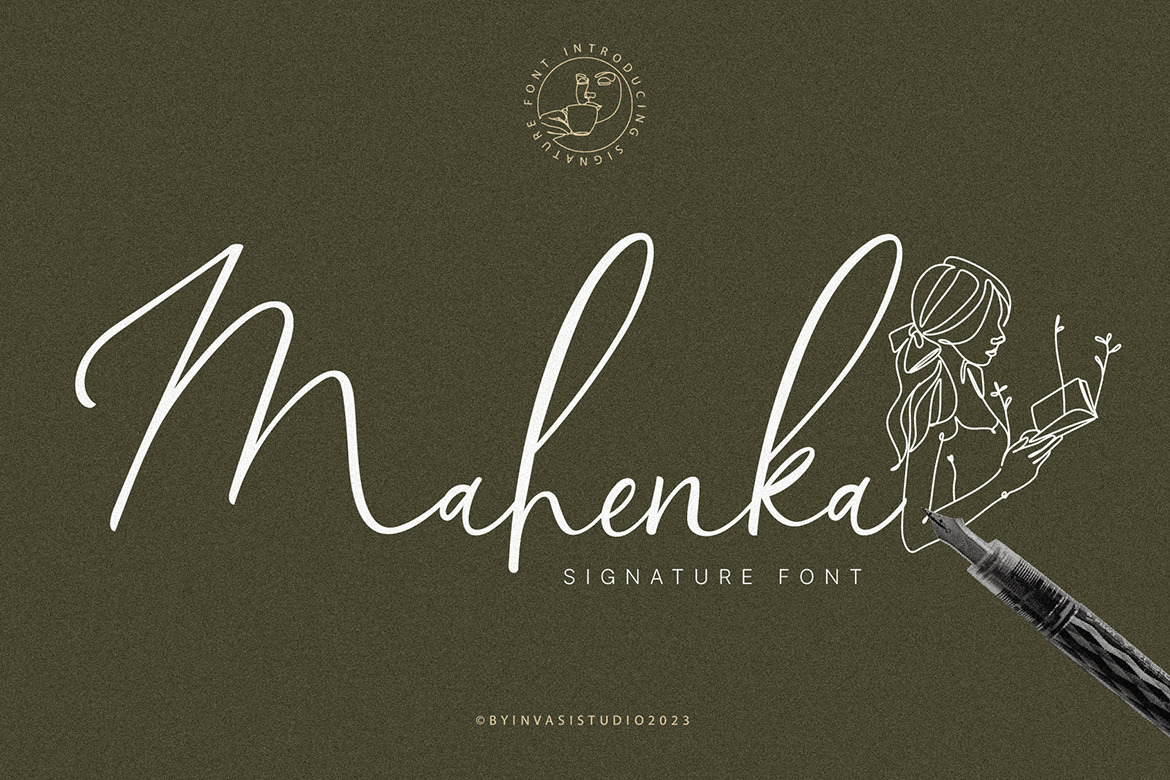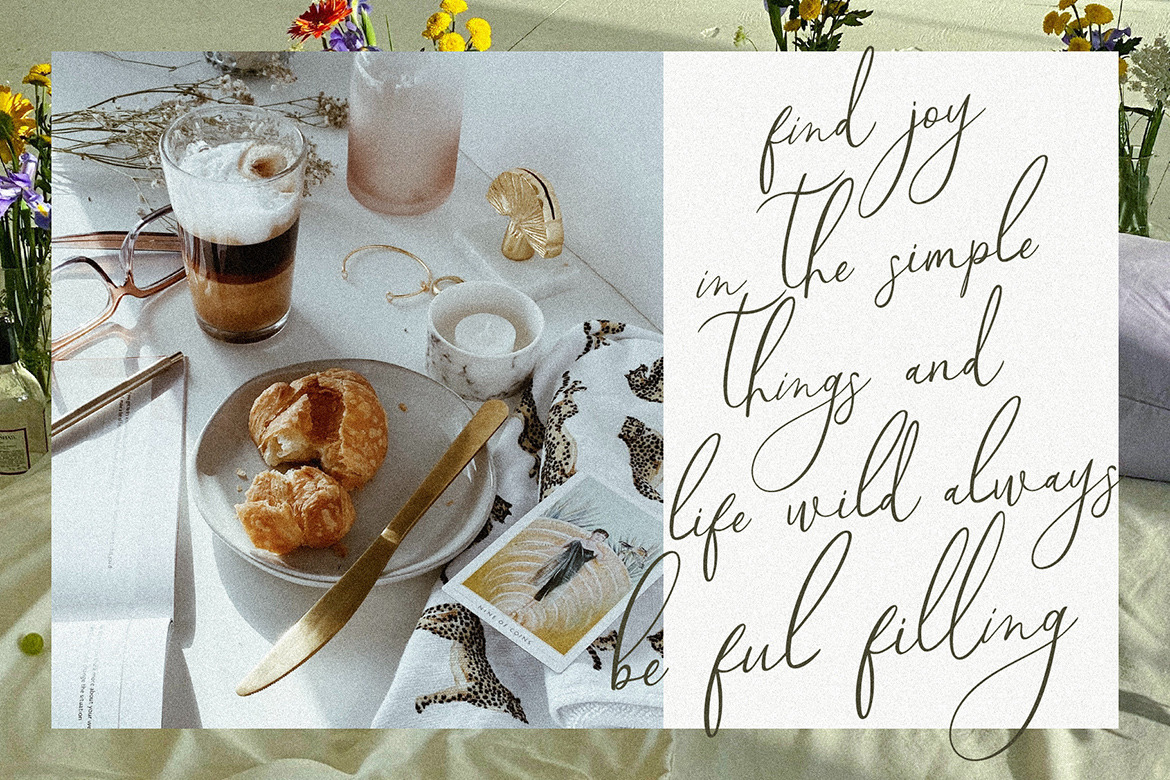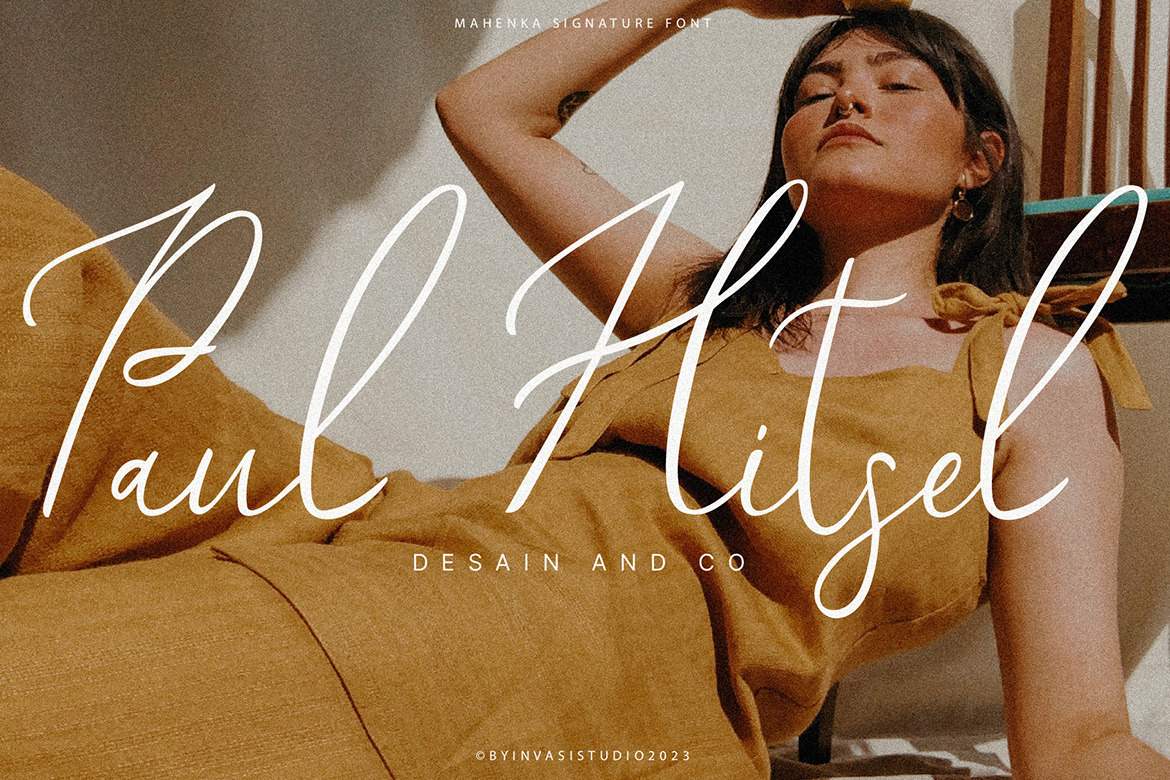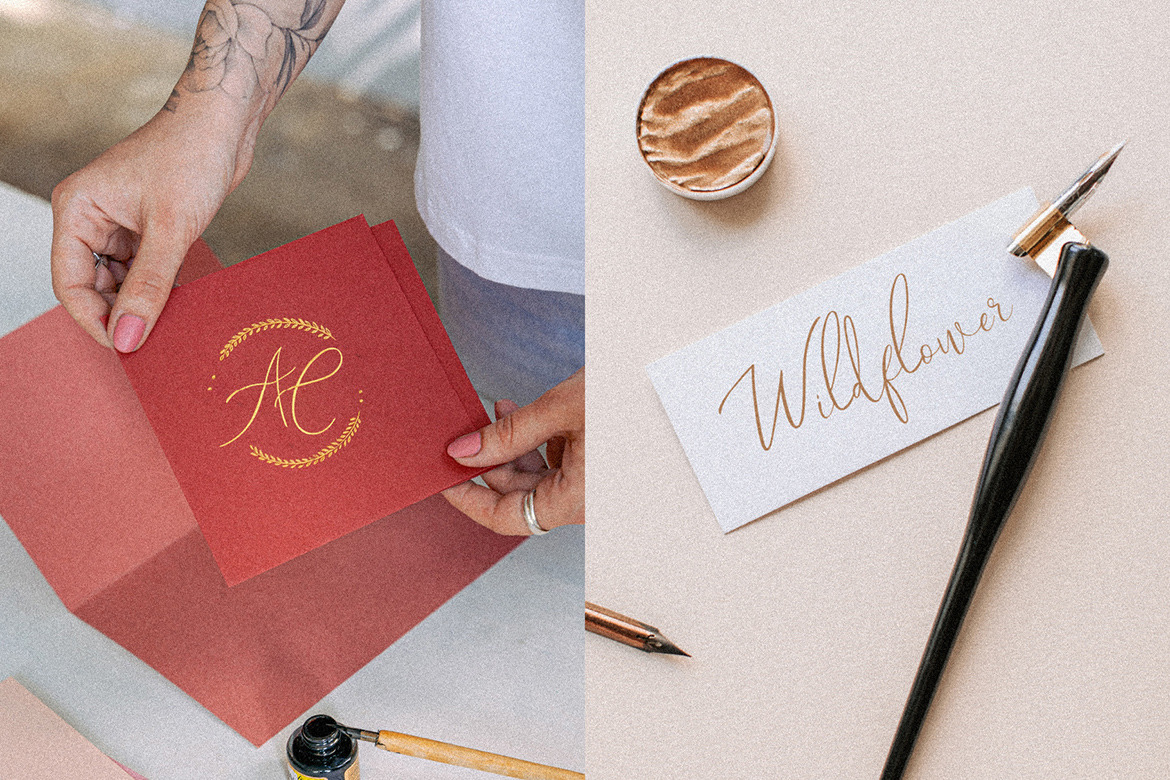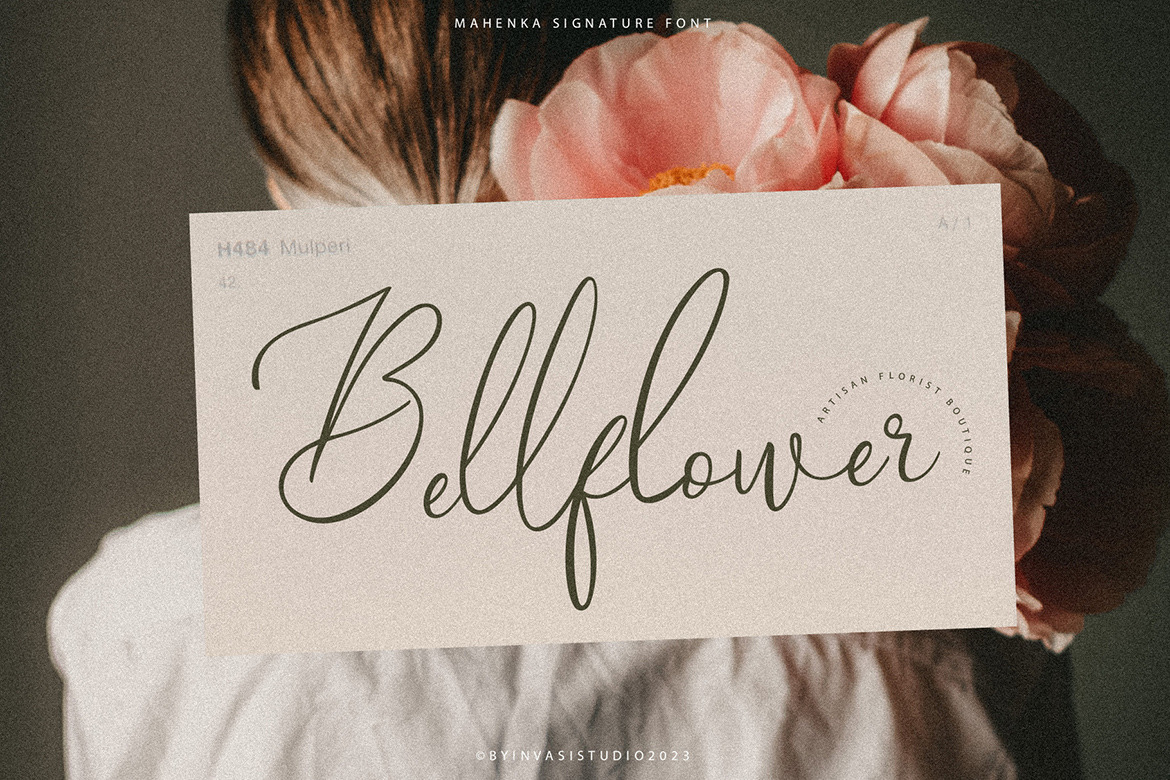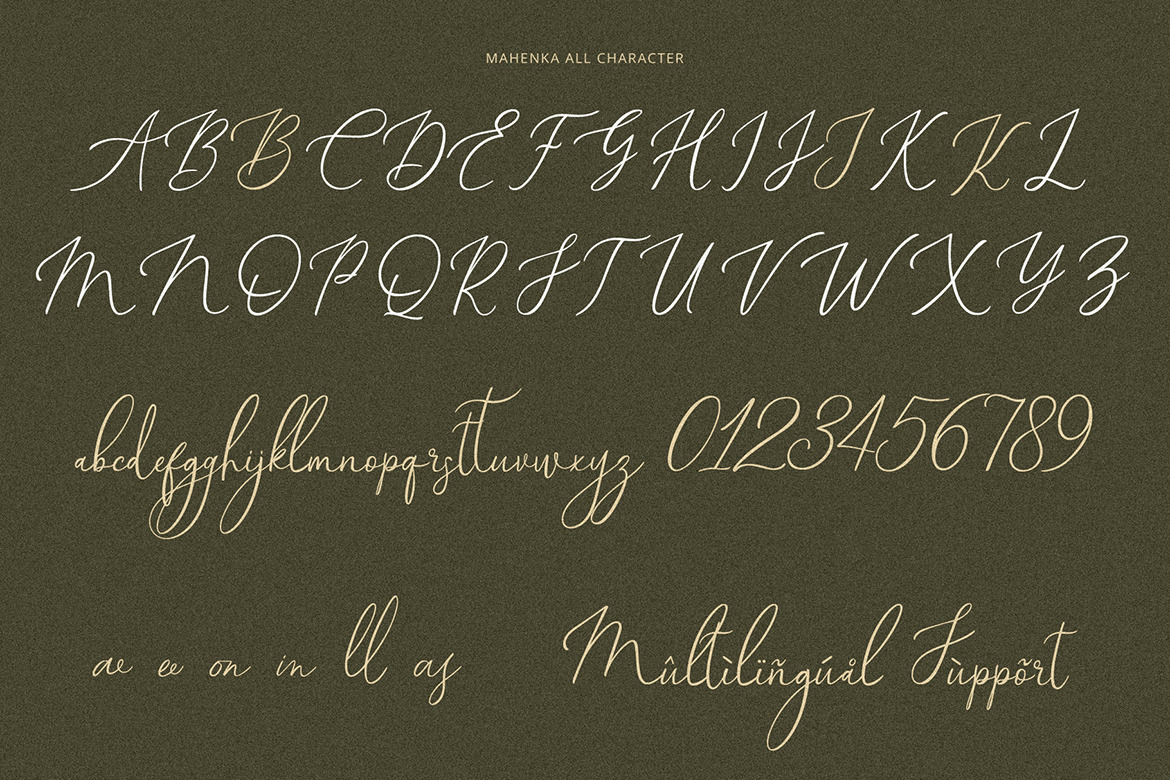
Mahenka - Signature Stylish Font
Mahenka is a stylish signature script font that exudes luxury and elegance, with its unique uppercase height making it stand out. This font features alternate characters, ligatures, and support for Latin multilingual characters, allowing you to create a truly personalized and sophisticated design. Perfect for high-end branding, wedding invitations, fashion, beauty, or any design project that requires a touch of elegance and style, Mahenka is a must-have for any designer's collection. So elevate your designs and add a touch of luxury with Mahenka.
- Numerals & Punctuation
- Alternate & Ligatures
- Multilanguage Supports 60+ Latin-based languages